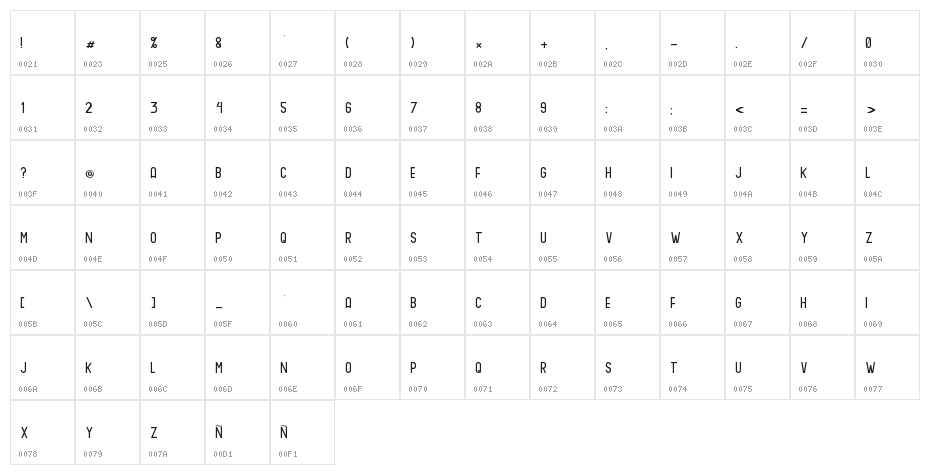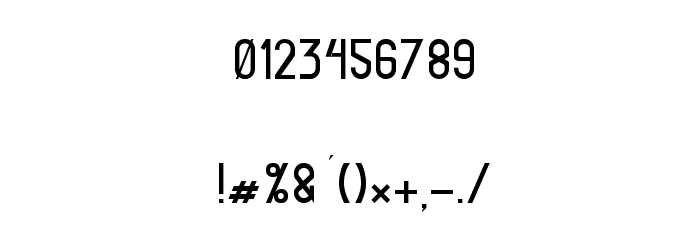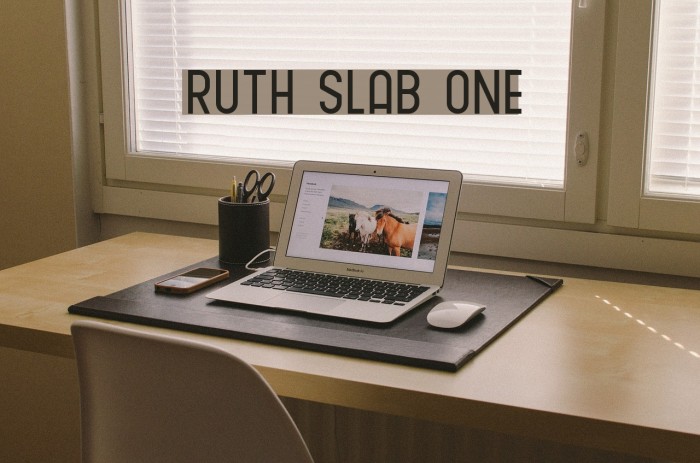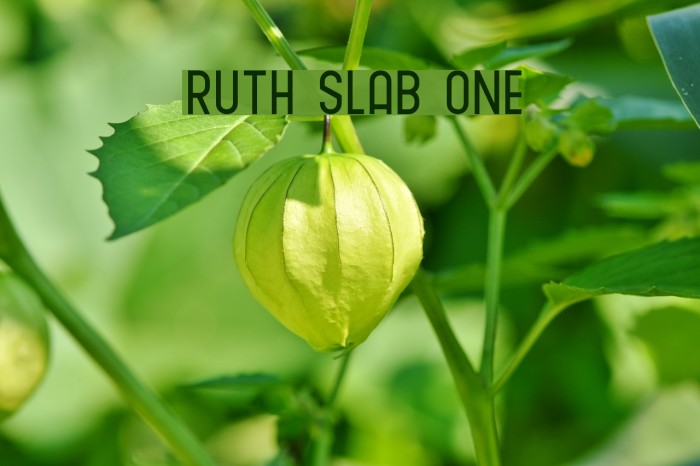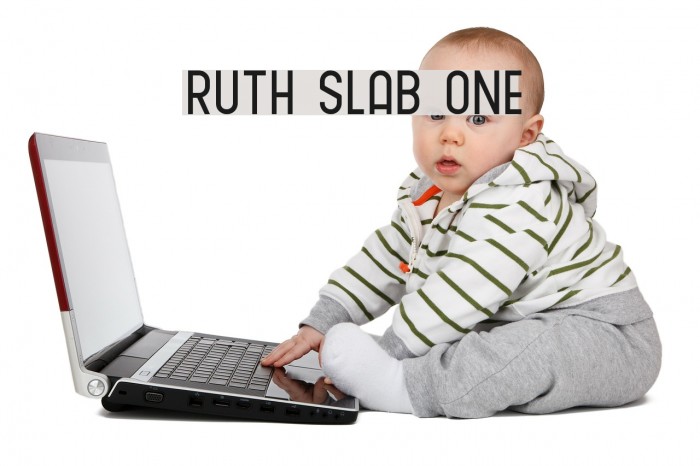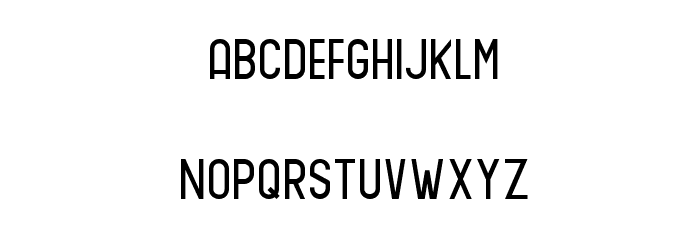
Ruth Slab One Font
Ruth Slab One Description
This font features a clean and modern design with a geometric structure. The characters are uniformly proportioned, providing a balanced and harmonious appearance. The uppercase letters are bold and assertive, while the lowercase letters maintain a consistent style that complements the overall aesthetic. The numerals are clear and easy to read, making them suitable for various applications. Special characters are designed with the same attention to detail, ensuring they integrate seamlessly with the rest of the font. The overall look is versatile, making it suitable for both digital and print media.